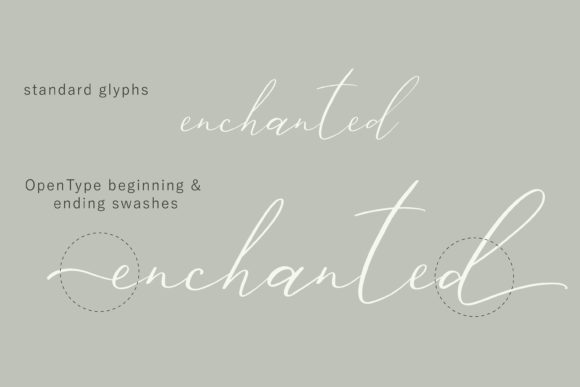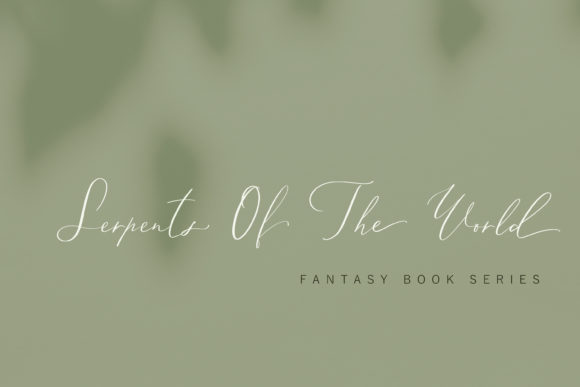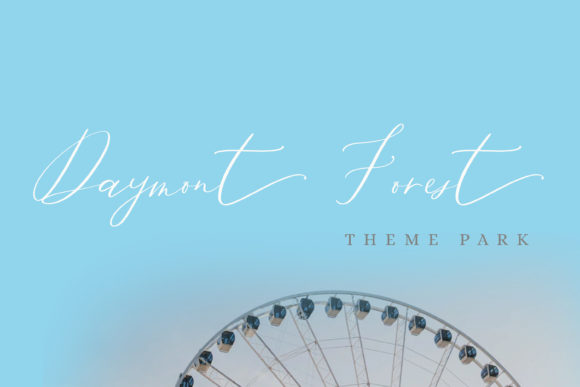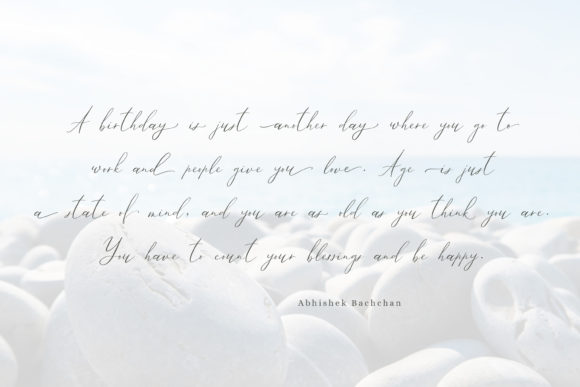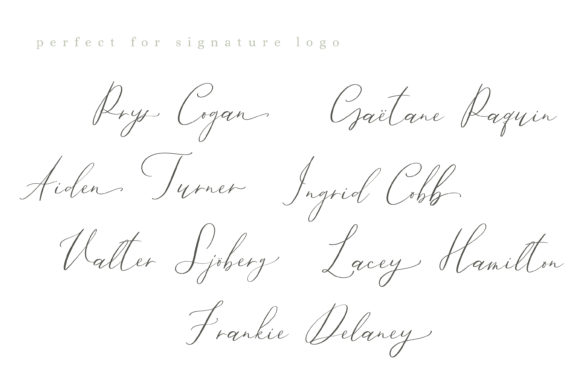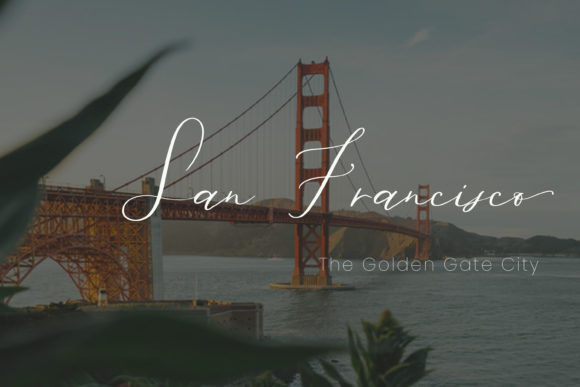
Ailre Heleris Font: Elevate Your Designs with Elegant Script
Ailre Heleris is an elegant script font that embodies the natural flow of handwritten style, making it a perfect addition to a variety of design projects. With its unique blend of sophistication and playfulness, this font is sure to capture the attention of designers and crafters alike. In this article, we’ll dive into the world of Ailre Heleris, exploring its features, uses, and benefits, as well as providing tips on how to make the most of this beautiful font.
The Characteristics of Ailre Heleris
Ailre Heleris boasts a distinctive, natural handwritten style that flows freely across the page. Its elegant script curves and fluid connections evoke a sense of sophistication and refinement, making it ideal for projects that require a touch of luxury. The font’s unique character set includes a range of letters, numbers, and punctuation marks, ensuring that you have everything you need to create stunning designs.
What Makes Ailre Heleris So Versatile?
One of the standout features of Ailre Heleris is its incredible versatility. This font can be used in a wide range of design projects, from:
• Branding and packaging design
• Blog and website headers
• Advertising and marketing materials
• Crafting and DIY projects
Whether you’re creating something elegant and refined or playful and whimsical, Ailre Heleris adapts seamlessly to your design vision.
Benefits of Using Ailre Heleris
So why choose Ailre Heleris for your design projects? Here are just a few benefits:
• Elegance and sophistication: Ailre Heleris adds a touch of luxury to any design, making it perfect for high-end brands and special occasions.
• Flexibility: With its wide range of characters and uses, Ailre Heleris can be applied to various design projects, saving you time and effort.
• Easy to read: Despite its elegant nature, Ailre Heleris remains clear and legible, ensuring that your message gets across effectively.
• Unique and creative: Ailre Heleris stands out from more traditional fonts, giving your designs a distinctive edge.
Tips for Using Ailre Heleris Effectively
To get the most out of Ailre Heleris, here are some expert tips:
• Pair with contrasting fonts: Combine Ailre Heleris with a clean, sans-serif font to create visual interest and hierarchy.
• Experiment with colors: Ailre Heleris looks stunning in a range of colors, from metallics to pastels.
• Play with size and scale: Use Ailre Heleris in various sizes to create emphasis and add visual flow to your design.
• Add decorative elements: Enhance your design with complementary graphics, patterns, or textures.
Ailre Heleris is an exceptional script font that brings a touch of elegance and sophistication to any design project. With its natural, handwritten style and versatile character set, this font is perfect for designers and crafters looking to elevate their creations. Whether you’re working on a wedding invitation, branding campaign, or social media graphic, Ailre Heleris is sure to impress. So why wait? Download Ailre Heleris today and discover the beauty of elegant script for yourself!